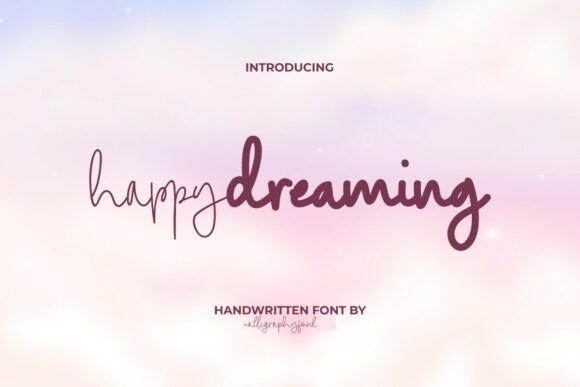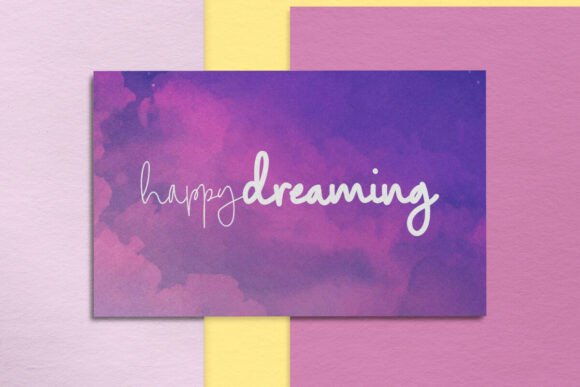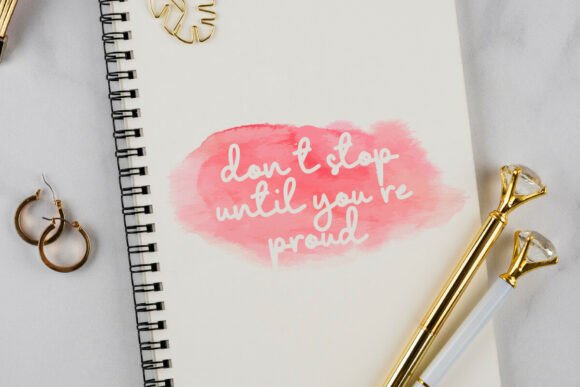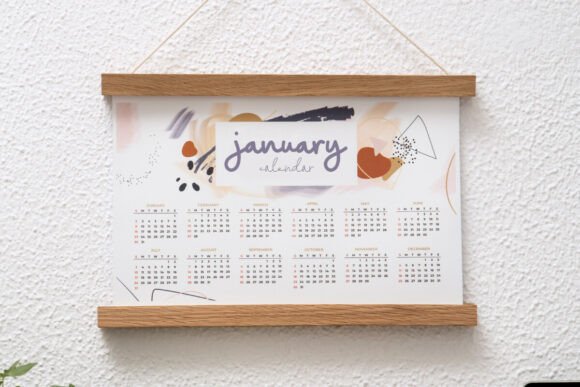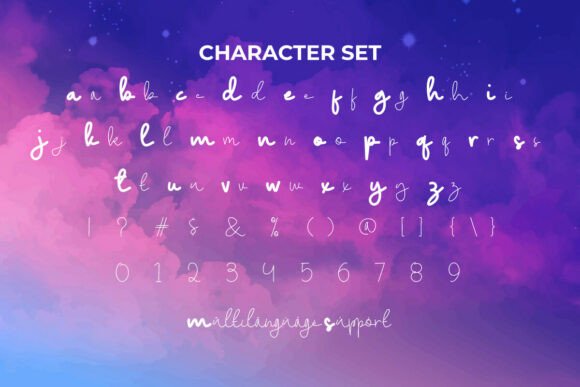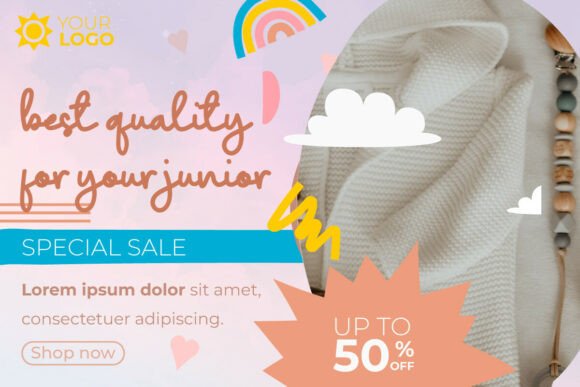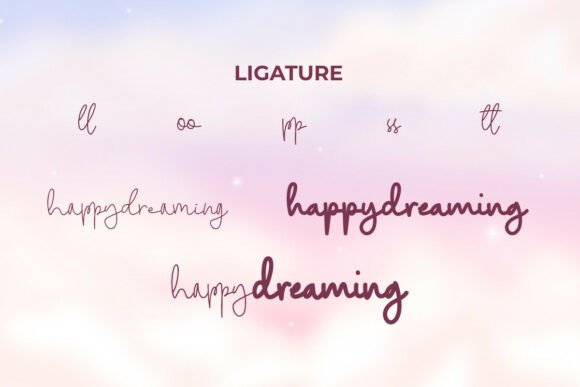
Unlock the Magic of Happy Dreaming Font
Remember that moment when you stumbled upon the perfect font for a project? The one that made all the difference between a good design and a great one? For me, it was when I discovered the Happy Dreaming Font. Its whimsical charm and carefree feel instantly captured my heart and sparked a wave of creative ideas.
The Happy Dreaming Font is a delightful handwritten font that brings warmth and personality to any creative piece. With its fluid strokes and casual charm, it’s perfect for greeting cards, social media graphics, children’s projects, and inspirational quotes. This font is a valuable addition to any designer’s toolkit, offering a unique way to add a dreamy, heartfelt vibe to their work.
Key Features of Happy Dreaming Font
- Font Family: Happy Dreaming Font is a unique, hand-drawn script font designed to evoke a sense of whimsy and playfulness.
- Character Set: Includes a wide range of characters, including uppercase and lowercase letters, numbers, punctuation, and special characters.
- Unique Characteristics: Features a dreamy, hand-painted feel with subtle texture and imperfections, giving it a unique and organic look.
Happy Dreaming Font Review
As a designer, I was excited to try out the Happy Dreaming Font and see if it would bring a touch of whimsy to my projects. Overall, I found it to be a charming and playful font, perfect for creating a dreamy atmosphere.
- ✨ The font’s cursive script is incredibly expressive, making it perfect for handwritten-style quotes and captions.
- ✨ The font’s light and airy feel is great for creating a sense of ethereal wonder.
- ✨ The font’s unique character set includes a range of special characters and symbols that add to its whimsical feel.
However, there are a few limitations that kept me from giving it a full 5 stars:
- ⚠️ The font’s font weight is a bit inconsistent, which can make it difficult to achieve a uniform look in certain applications.
- ⚠️ The font may not be the best choice for body text, as it can be difficult to read in smaller sizes.
- ⚠️ The font’s unique feel may not be for everyone, and some users may find it too cutesy or over-the-top.
Overall, I think the Happy Dreaming Font is a great choice for designers looking to add a touch of magic to their projects. While it may have a few limitations, its unique charm and expressive qualities make it a standout font in my book.
Tips: Use Happy Dreaming Font for titles and headings to add a whimsical touch to your designs.
Tips: Use Happy Dreaming Font for creative typography projects, such as quotes or song lyrics.
Tips: Use Happy Dreaming Font for titles, headings, and body text to add a playful touch to your presentations and documents.
Happy Dreaming Font is perfect for:
1. Creative typography projects.
2. Whimsical illustrations and designs.
3. Dreamy and ethereal themes.
4. Playful and imaginative content.
Alternatives to Happy Dreaming Font
Great Vibes Font is a beautiful, elegant script font perfect for creating a sense of luxury and sophistication. It’s ideal for use in wedding invitations, luxury brand logos, and high-end packaging. Compared to Happy Dreaming Font, Great Vibes Font has a more refined and polished feel, making it suitable for more upscale designs.
Carolyna Pro Font is a modern, cursive script font that’s perfect for creating a sense of elegance and refinement. It’s ideal for use in wedding invitations, fashion branding, and high-end marketing materials. Compared to Happy Dreaming Font, Carolyna Pro Font has a more contemporary feel, making it suitable for modern and trendy designs.
Alex Brush Font is a beautiful, handwritten script font that’s perfect for creating a sense of warmth and personality. It’s ideal for use in social media branding, blog headers, and creative marketing materials. Compared to Happy Dreaming Font, Alex Brush Font has a more casual and relaxed feel, making it suitable for designs that require a friendly and approachable tone.
Can I customize the Happy Dreaming Font to fit my specific design needs?